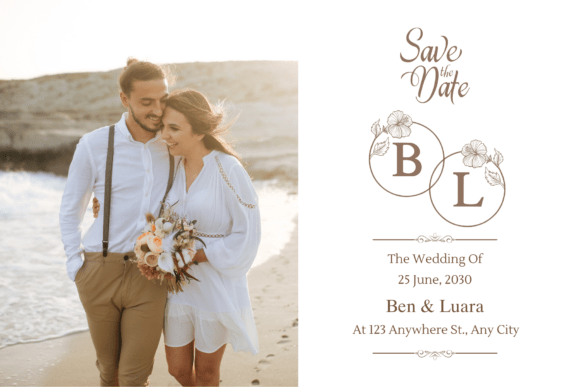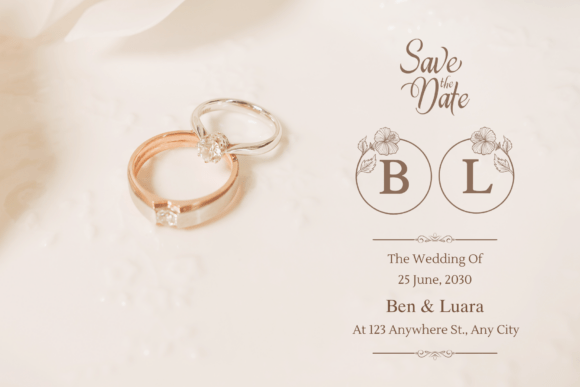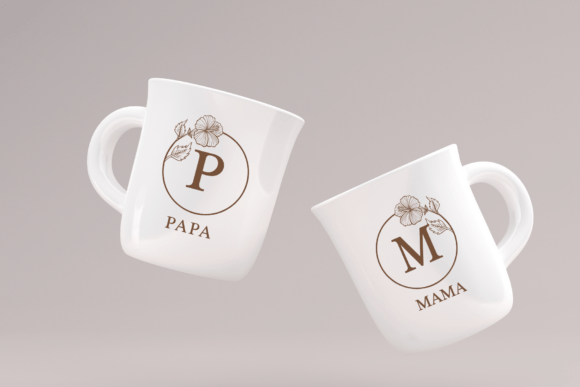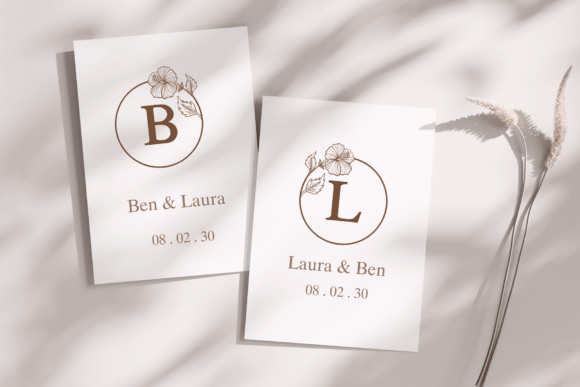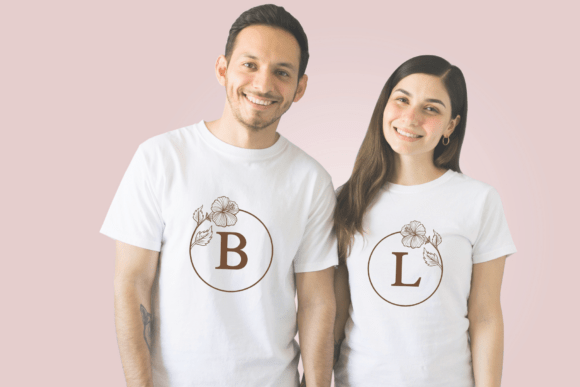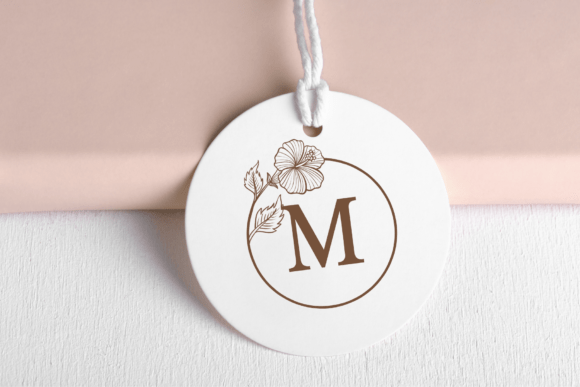
The Elegance of Hibiscus Monogram Font: A Designer’s Delight
I’ll never forget the time I was working on a wedding invitation project, and my client asked for a font that would make their special day feel like a fairytale. I scoured the internet, tried countless fonts, but nothing seemed quite right. That was until I stumbled upon the Hibiscus Monogram Font. It’s been a game-changer ever since! ✨
A Closer Look: What I Love About Hibiscus Monogram Font
The Hibiscus Monogram Font is an elegant font designed specifically for special occasions. It features decorative letters nestled inside a beautiful hibiscus flower and leaf frame, making it perfect for invitations, wedding cards, branding, and stationery.
- ✨ Elegant and sophisticated design
- ✅ Perfect for special occasions like weddings, anniversaries, and birthdays
- ✅ Decorative letters and hibiscus flower frames add a touch of charm
- ✅ Versatile and can be used for various design projects
Honest Review: The Not-So-Perfect Aspects
While the Hibiscus Monogram Font is a stunning addition to any design project, there are a few quirks to consider:
- ⚠️ Limited character set: The font might not support all languages or special characters.
- 🤔 Can be a bit tricky to use for beginners, especially when accessing OpenType features.
The Story Behind Hibiscus Monogram Font
The Hibiscus Monogram Font was designed with love and care by a talented typographer who wanted to create a font that would evoke the beauty and elegance of tropical flowers. Inspired by the hibiscus flower’s delicate curves and intricate details, this font is perfect for designers and crafters looking to add a touch of sophistication to their work.